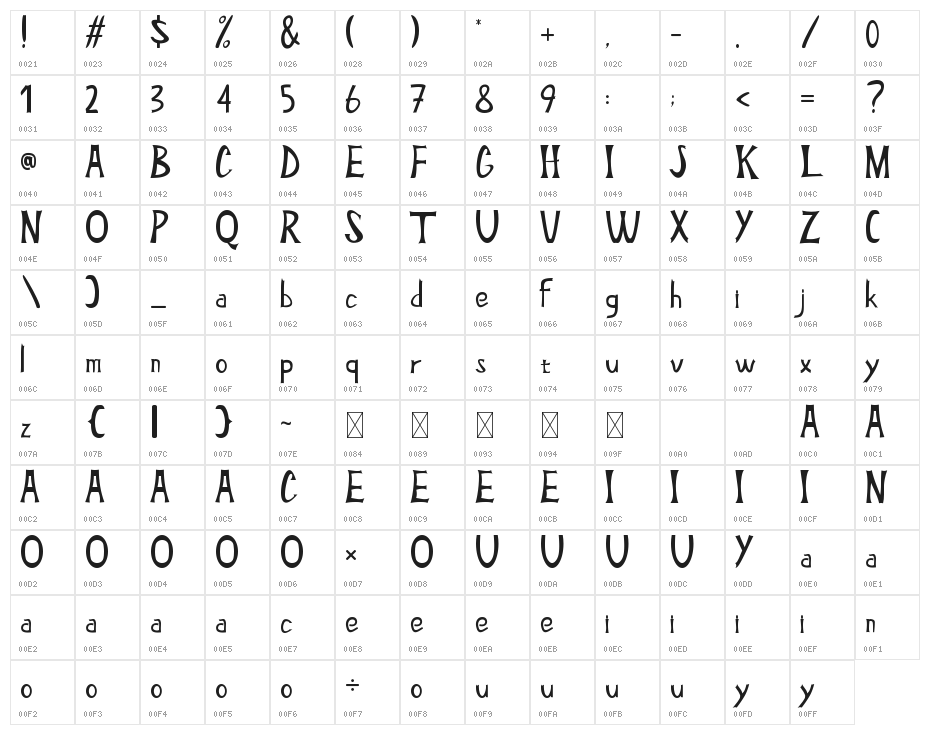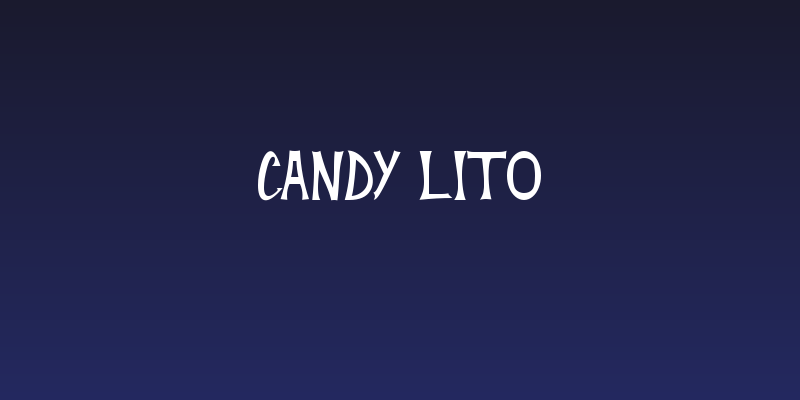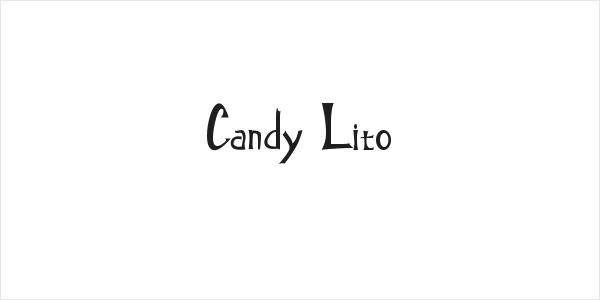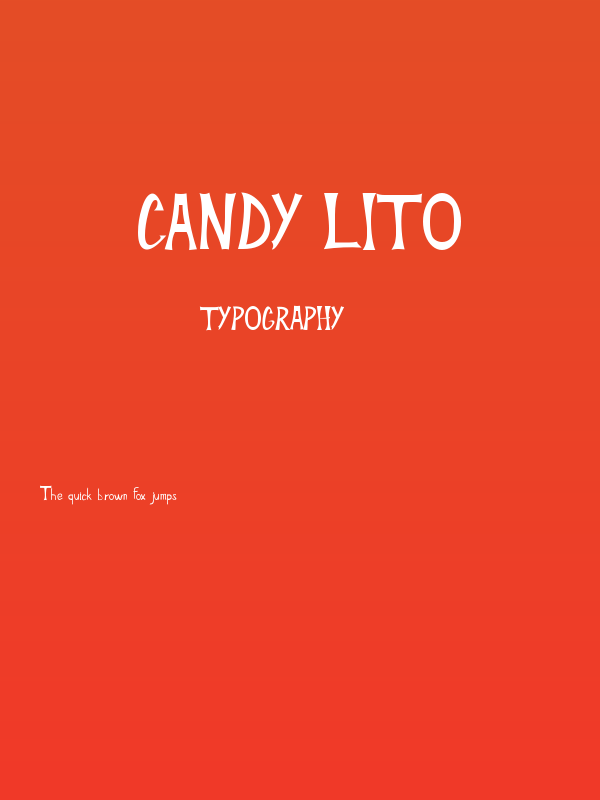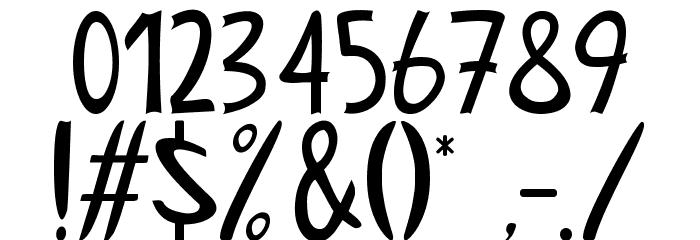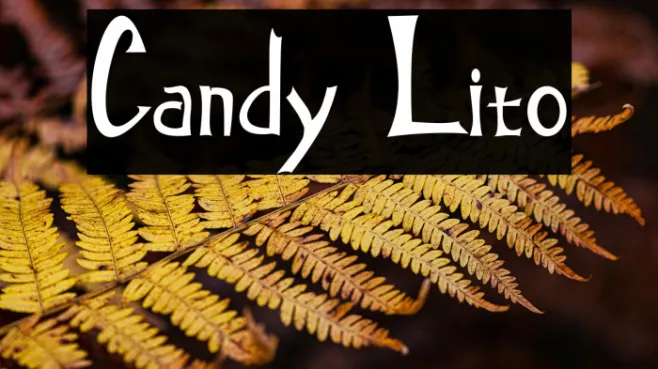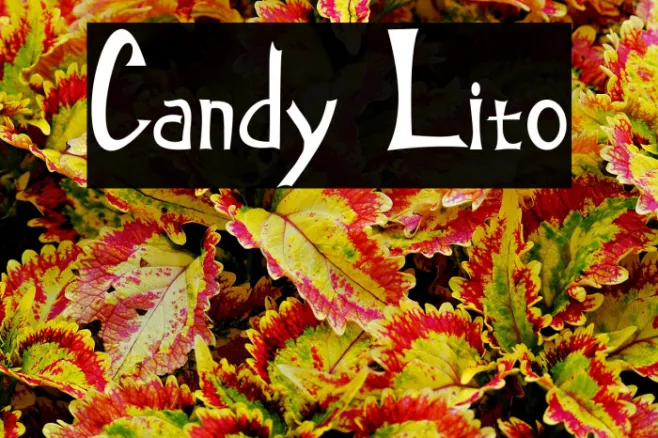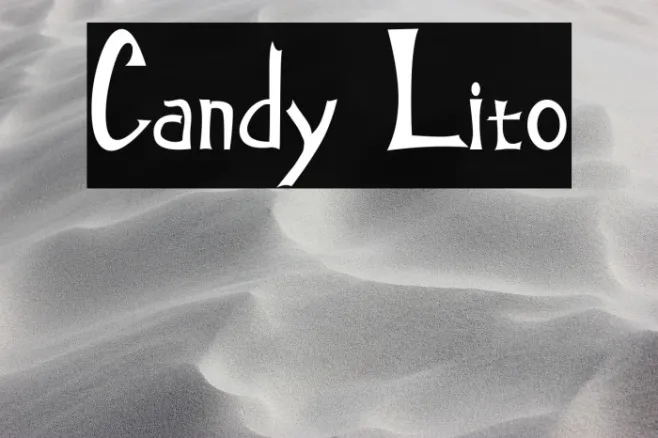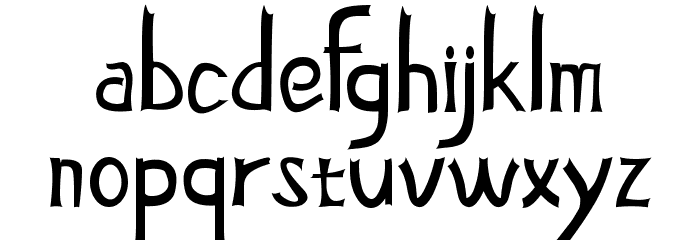
Candy Lito Font
Candy Lito Description
This font features a playful and whimsical design, characterized by its irregular and dynamic letterforms. The uppercase letters have a tall, slightly narrow appearance with varying stroke widths that add a lively and energetic feel. The lowercase letters maintain this playful style, with some characters featuring unique flourishes and curves. The numerals are bold and distinct, complementing the overall quirky aesthetic. Special characters are creatively styled, adding to the font's charm. This font is ideal for projects that require a fun and informal touch.
| Proposed Projects | Great for children's books, playful branding, party invitations, and creative posters. |